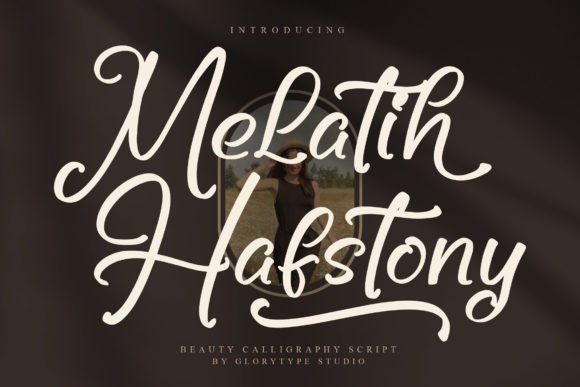
Explore the Charm of Melatih Hafstony Font: Elevate Your Designs with Elegance and Playfulness
In the world of typography, where letters dance and characters tell stories, allow us to introduce you to the enchanting Melatih Hafstony Font, a script font that weaves elegance and playfulness into every word it graces. Crafted with meticulous care by the talented team at Glorytype Studio, this font is a true masterpiece that will transport your designs to new heights of creativity.
With its graceful curves and sweeping strokes, Melatih Hafstony Font possesses an allure that is both captivating and timeless. Its thin, yet expressive lines lend a delicate touch to any project, while its consistent rhythm creates a sense of harmony and balance. Whether you're crafting a heartfelt love letter, designing a whimsical poster, or creating a stylish logo, Melatih Hafstony Font will effortlessly elevate your work with its inherent charm.
Love Quotes Find Their Perfect Expression
For those with a passion for expressing emotions through the written word, Melatih Hafstony Font is your ideal companion. Its soft, romantic strokes perfectly capture the essence of love, making it the perfect choice for crafting heartfelt quotes that resonate with your audience. Imagine your words of adoration adorned with the elegant curves of Melatih Hafstony Font, taking on a life of their own as they dance across the page. Every stroke, every letter, every word will convey the depth of your emotions with an eloquence that leaves a lasting impression.
Beyond Love: A Multifaceted Muse for Creativity
While Melatih Hafstony Font excels in expressing matters of the heart, its versatility extends far beyond the realm of love quotes. Its playful nature lends itself beautifully to designing logos that exude a sense of whimsy and charm. Picture a logo adorned with the whimsical strokes of Melatih Hafstony Font, instantly capturing the attention of your audience with its unique personality.
The font's graceful curves also make it an excellent choice for creating eye-catching posters and invitations. Its ability to add a touch of elegance to any design makes it perfect for creating promotional materials that stand out from the crowd. Whether you're promoting a special event or introducing a new product, Melatih Hafstony Font will help you create visuals that leave a lasting impression.
Make Your Projects Sparkle with Melatih Hafstony Font
Melatih Hafstony Font is more than just a font; it's an artistic tool that empowers you to transform your creative visions into tangible realities. Its unique charm and versatility make it a valuable asset for designers, artists, and anyone looking to add a touch of elegance and playfulness to their projects.